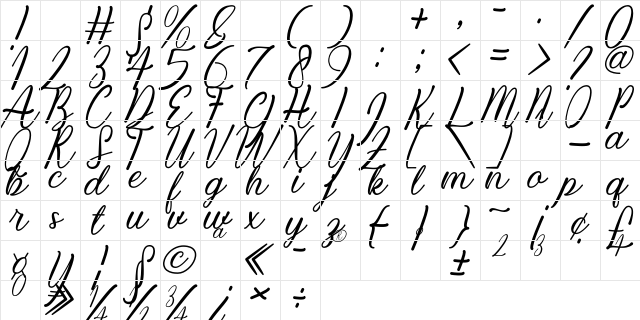
Kiara Akira Regular
Design Context for Kiara Akira Typeface
Kiara Akira is a composed and adaptable typeface that performs quietly and consistently across a wide range of design contexts.